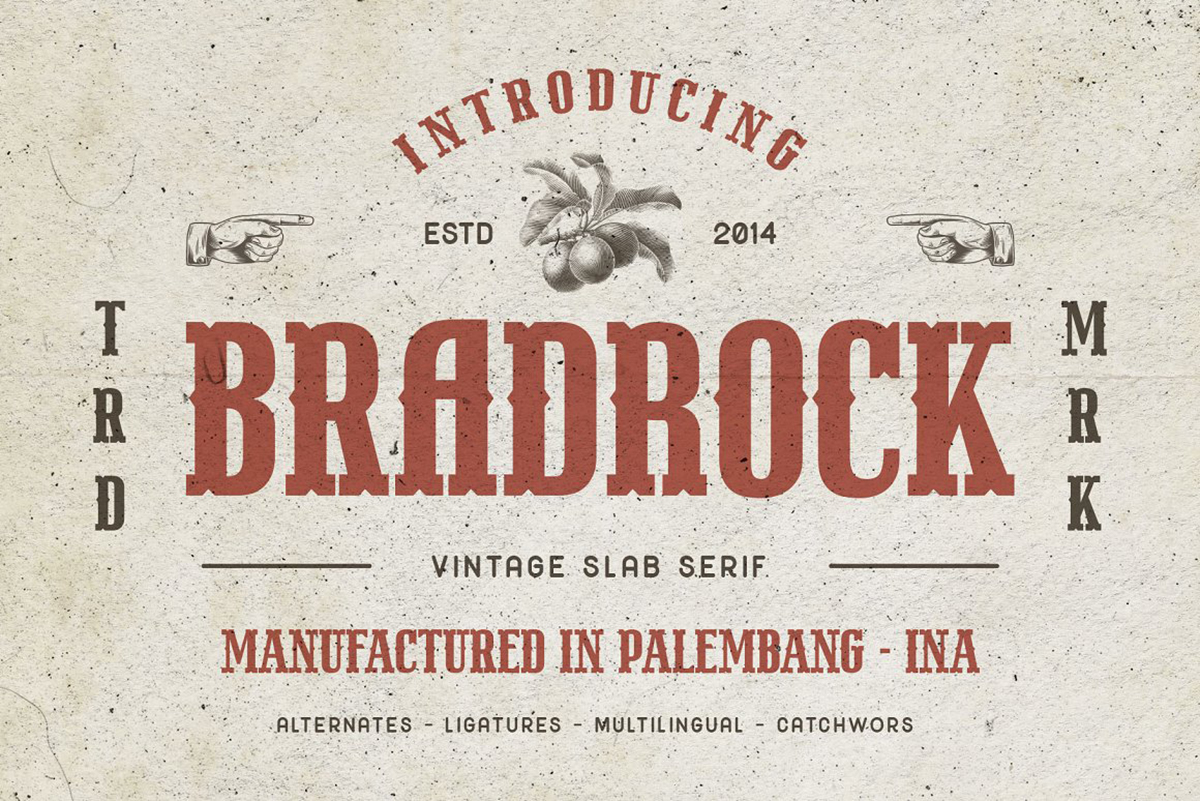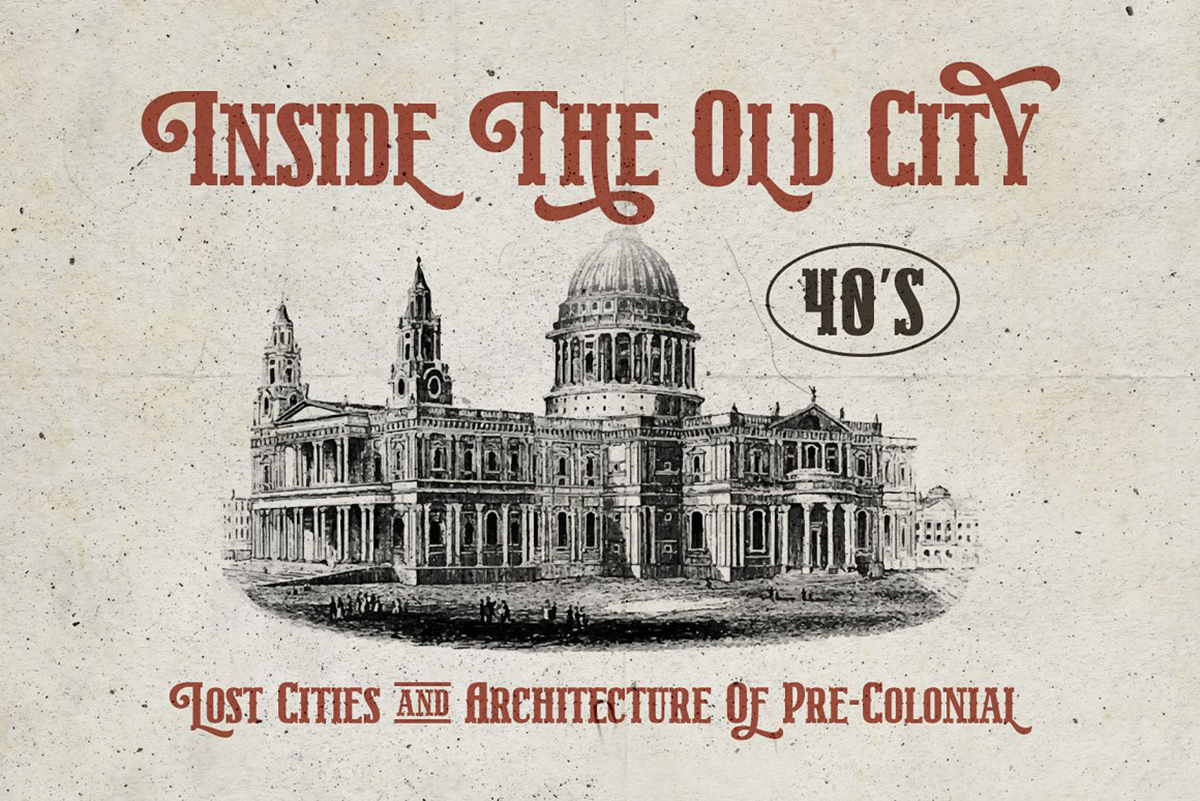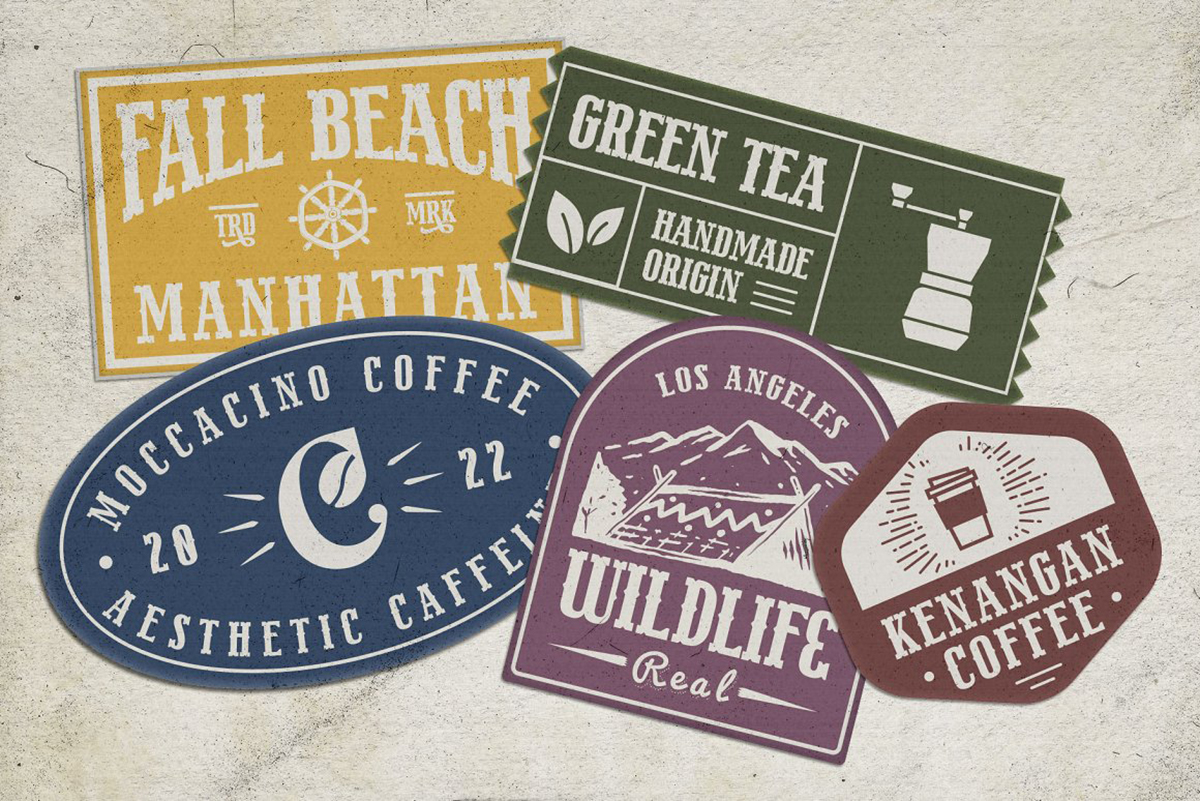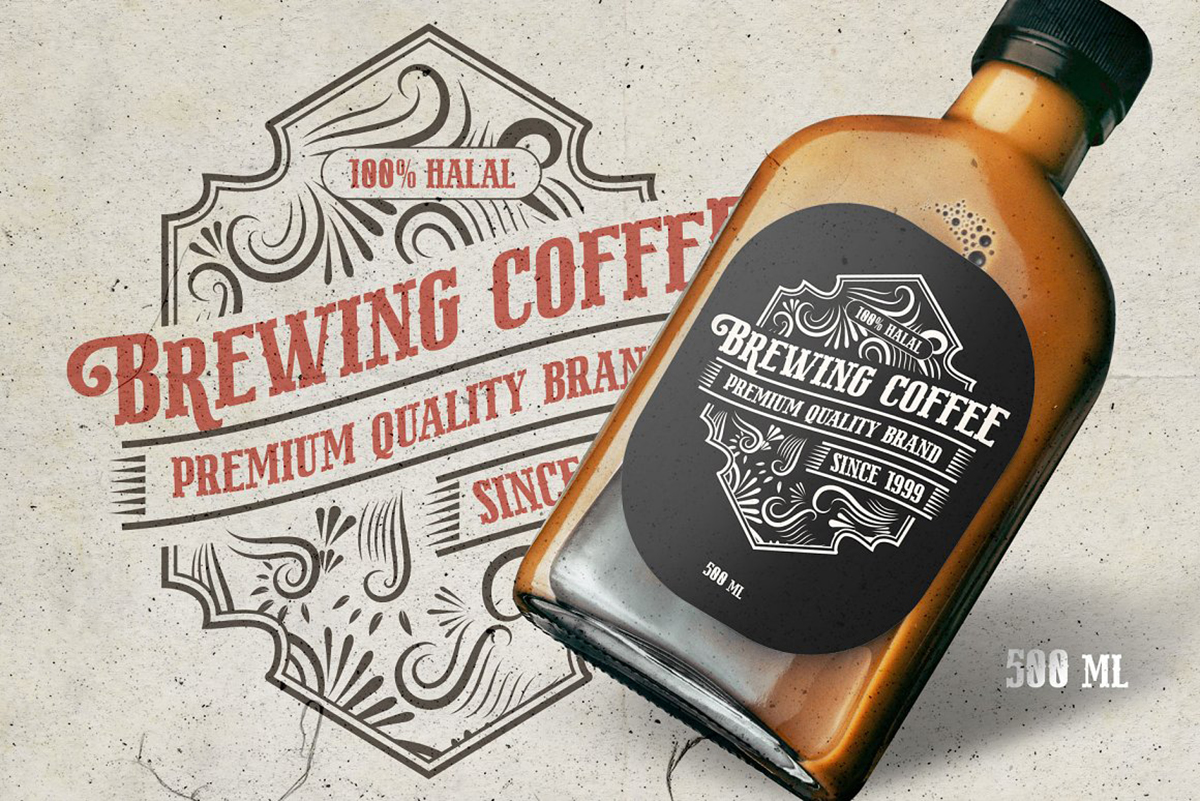
Bradrock Free Font
Bradrock Free Font s a vintage slab serif typeface. Inspired by old-school cowboy design, and circus-style, Bradrock will instantly take you back in time. You can use this font for many purposes such as vintage logos, mugs, embroidery, prints, display, short text, packaging, cards, emblem, signage, and many more. This free typeface was designed by a talented Arterfak Project. If you like it don’t forget to check out the full version.